Font Psychology 101: How To Choose The Best Fonts For Your Brand
Fonts help establish a brand image for your business. Most popular businesses use a distinct font across their publications and texts. Font psychology is an area of study that focuses on the impact different types of the font have on people. A study found that text written in red ink is more memorable than other colors. Similarly, other studies have proven that colors, sizes, stylization, and other aspects of fonts affect the unconscious mind of potential buyers or clients. Due to this, choosing a font for a brand is a crucial step in creating your brand image.
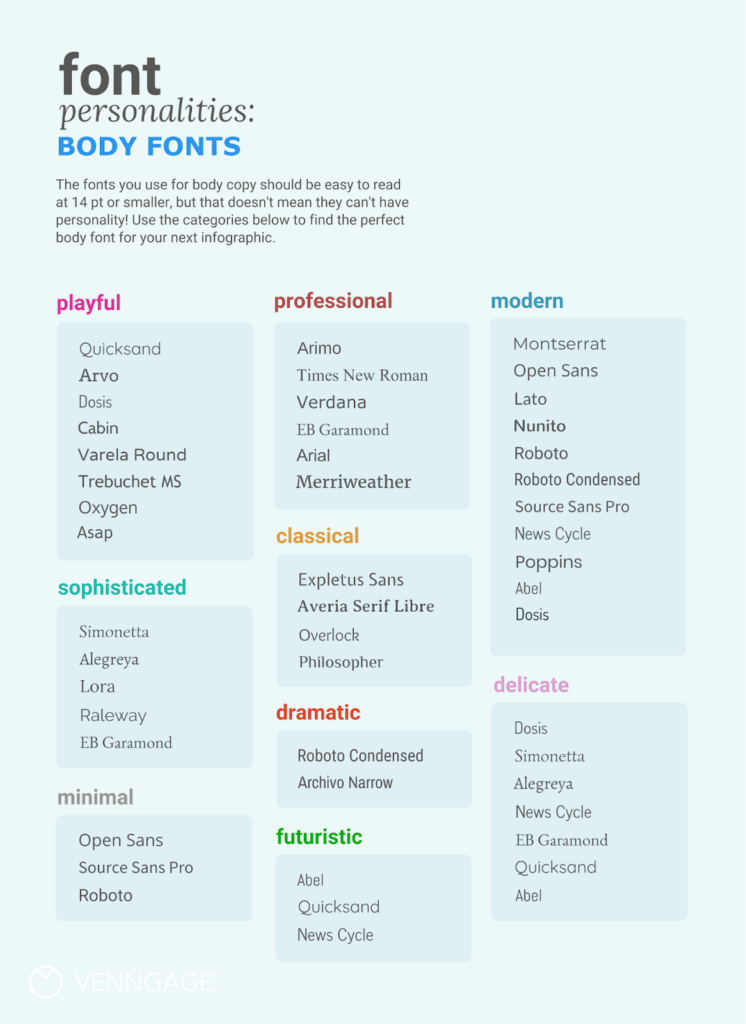
Different Font Types
While numerous fonts exist, they can be clubbed mainly into four categories. According to font psychology, these types also play a role in evoking a brand image.
1. Serif fonts and Sans Serif fonts
Serif fonts have “feet” in their letters, while sans serif letters do not. Serif fonts have a more traditional appearance as compared to sans serif. An example of serif font could be “Times New Roman.” There is a variety of fonts available under either of these categories.
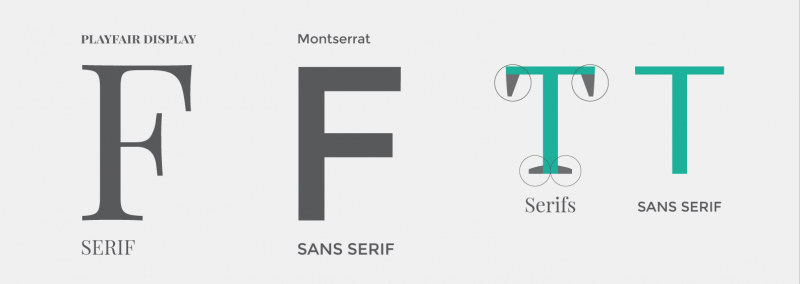
2. Script fonts
Script fonts are more stylized. There are two main categories under this font type – formal and modern. Formal script fonts resemble traditional calligraphy, while modern script fonts are more easy-going and resemble regular handwriting. Yellowtail is an example of script font.
3. Display fonts
Display fonts include a broad category of fonts ranging from symbols to highly stylized letters. They are usually used for logos and headers instead of body text. These fonts complement businesses that follow a fashionable theme. Rock Salt is an example of a display font.
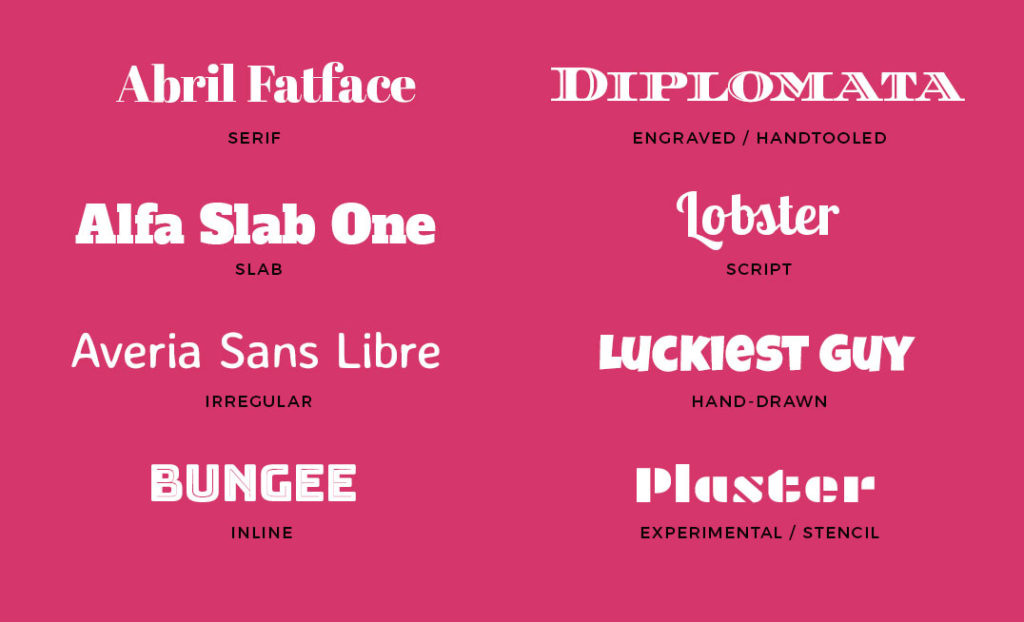
Fonts for Your Brand
Depending on the target audience, theme, colors, products, or services, you may opt for a specific font for a brand according to font psychology. You can start by categorizing your brand as one of the following:
- Formal or Informal
- Classic or Modern
- Light or Dramatic
If your brand is more formal or classic with a light presence, you can go for more traditional serif fonts along with sans serif. The more formal and classic you want your font to appear, the thicker serif font you should opt for, and vice versa. If you want your brand to seem more modern, you can opt for simple serif fonts or slim sans serif fonts. For dramatic and informal brands, you can experiment with quirky display fonts or script fonts.
- Serif is a formal style that evokes a classic feel. It can be used for dramatic or light marketing for headers and as a body font.
- Sans Serif is a modern style that can be used for body fonts as well. It is quite popular because it is easy to understand due to its minimalistic feel.
- Script fonts can be used to evoke a sense of femininity or luxury. They can be used with both modern and traditional themes. These are more suited for header text than body text.
- Display fonts are considered modern and suit dramatic branding the best. This style has a lot of variations which allows for diverse usage. It is best suited as a header font and is not recommended for body fonts.
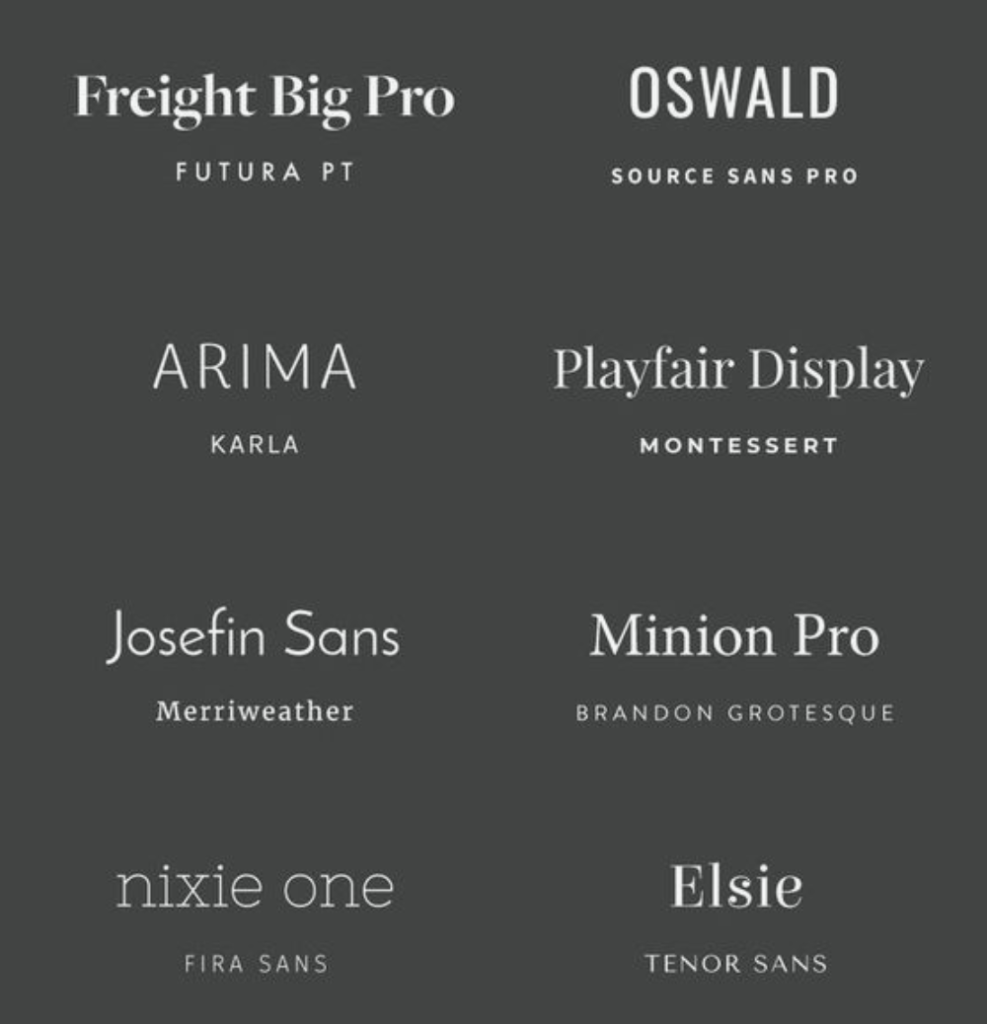
Choosing the Right Font for Your Brand
You should stick to two or three fonts for brand image and your own convenience. Just be mindful of font psychology while choosing a font for a brand.
- Start by selecting the primary font for the brand. You can refer to the pointers above and choose one from the plethora of fonts available online. Your main font should be impactful while emitting a general aura of your brand image.
- Select one or two supporting fonts that complement your main font and brand image. If your main font is highly stylized as a header font in publications, you can choose another font for the brand to be used as a subfont.
- Confirm that all your fonts complement each other by using them together. Experiment with different sizes and stylization options.
- Bold your header font for emphasis. Italicize for smaller details written in thinner fonts. Capitalize for short headings, tag lines, or titles. Try not to capitalize large text areas since it will give an aggressive impression.
Other Points to Consider
If you pick a thicker font for either the main font or subfont, you should balance it by choosing a thinner font for the other. In other words, if your main font is thick, choose a thinner sub font and vice versa.
Specific fonts have a bad reputation; using these can be detrimental to your brand image based on font psychology. These include Comic Sans, Papyrus, Hobo, Bush Script, and Stencil.
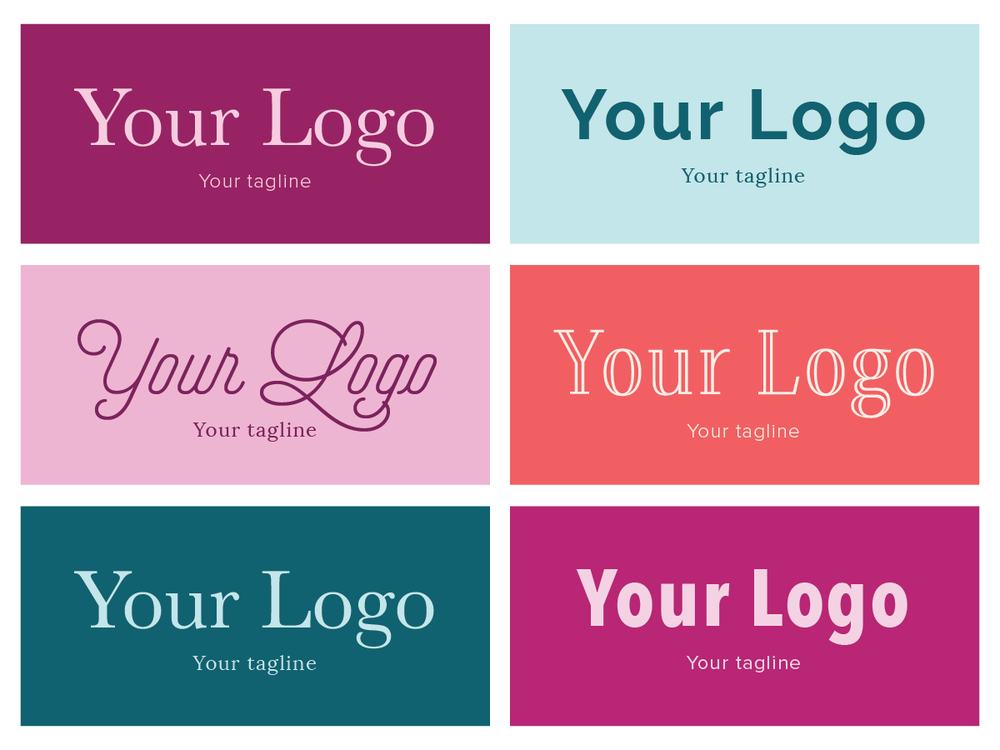
Key Takeaways
- According to font psychology, fonts help establish a brand image and affect the clientele.
- There are various types of fonts. These can be categorized into Serif, Sans Serif, Script, and Display fonts. Each type evokes a distinct impression.
Fonts such as Comic Sans, Papyrus, Curlz, and Hobo are outdated and overused. While there is nothing wrong with them per se, you should consider looking for more unique font styles.
Gilroy, Febre, Margret, Asthetik, Playfair Display are some examples of display fonts.